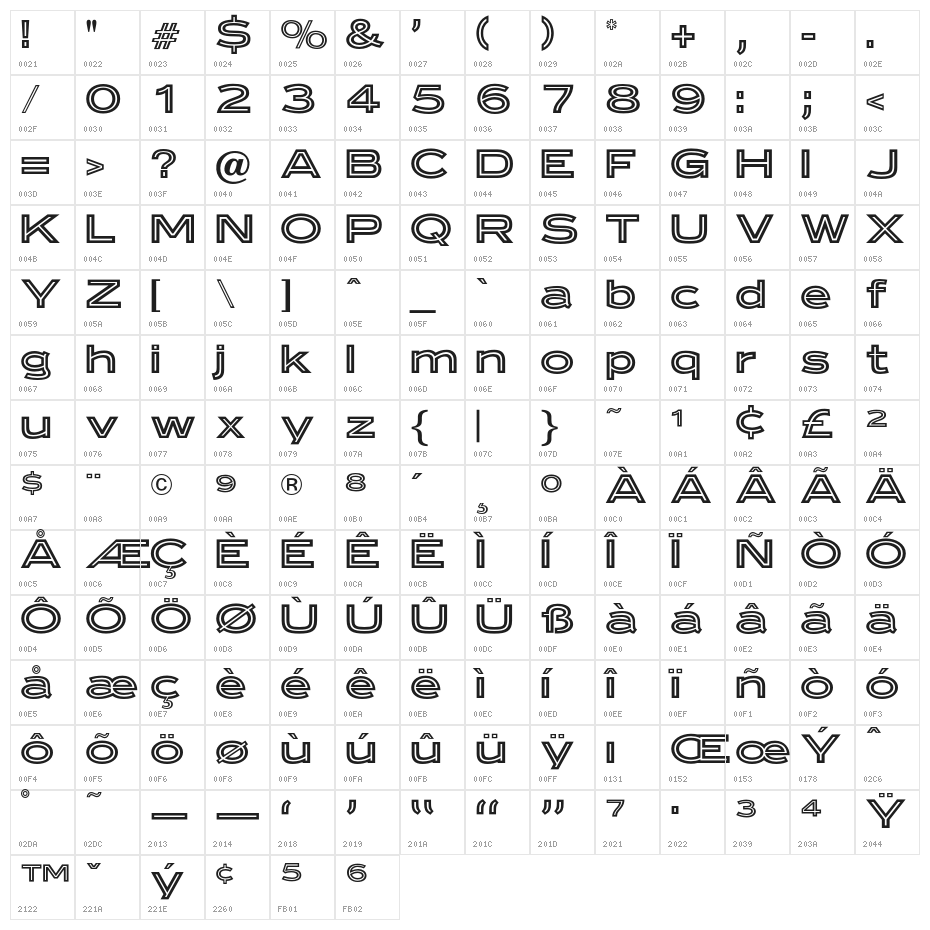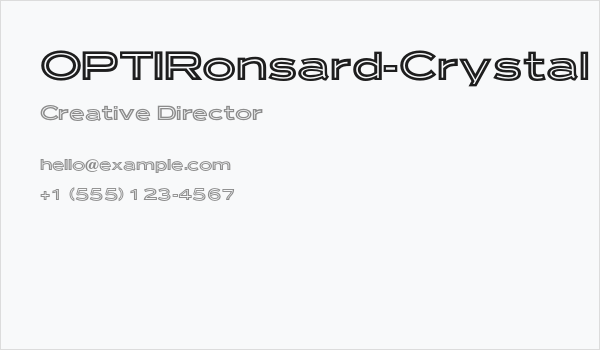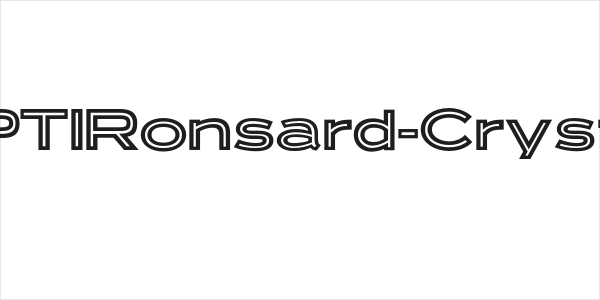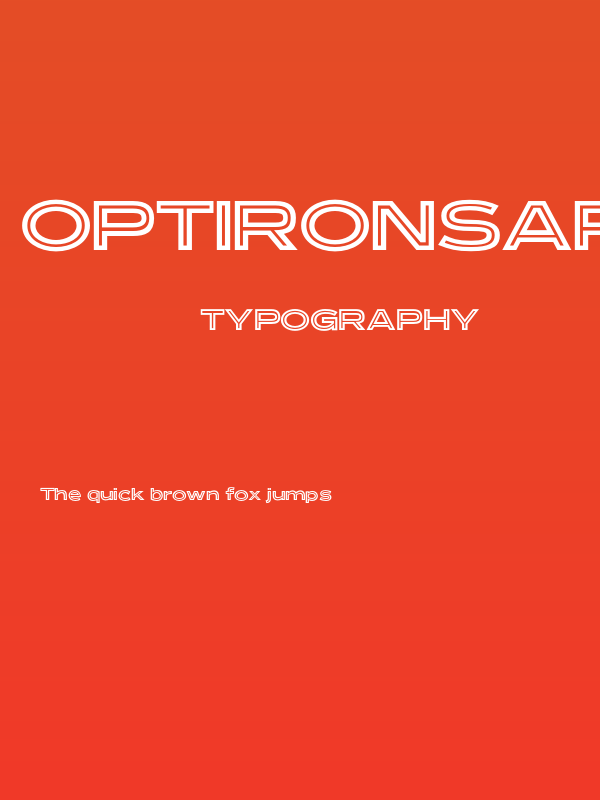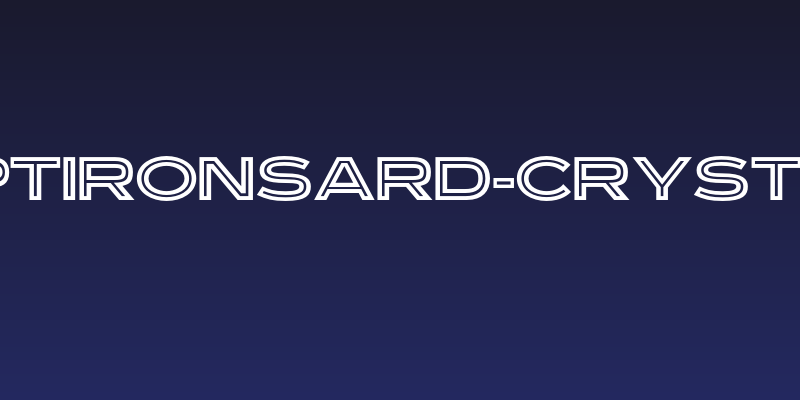
OPTIRonsard-Crystal Font
OPTIRonsard-Crystal Description
This font features a modern and geometric design with clean, bold lines and a distinct outline style. The uppercase and lowercase letters maintain a consistent width, creating a harmonious and balanced appearance. The numerals are clear and easy to read, while the special characters are well-integrated, adding to the font's versatility. Its structured form and open counters make it suitable for a variety of design applications, offering a contemporary and stylish look.
| Proposed Projects | Ideal for branding, headlines, posters, and digital media where a modern and striking appearance is desired. |